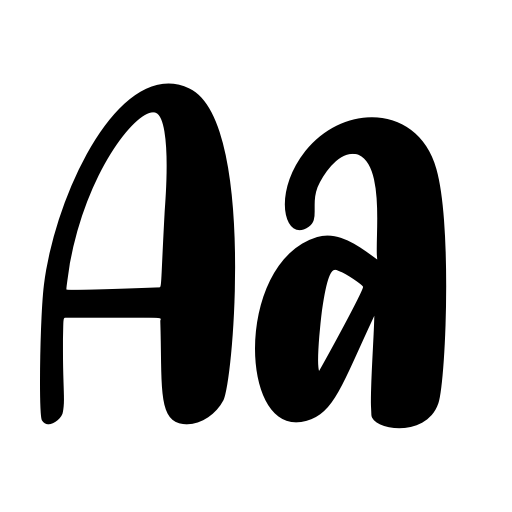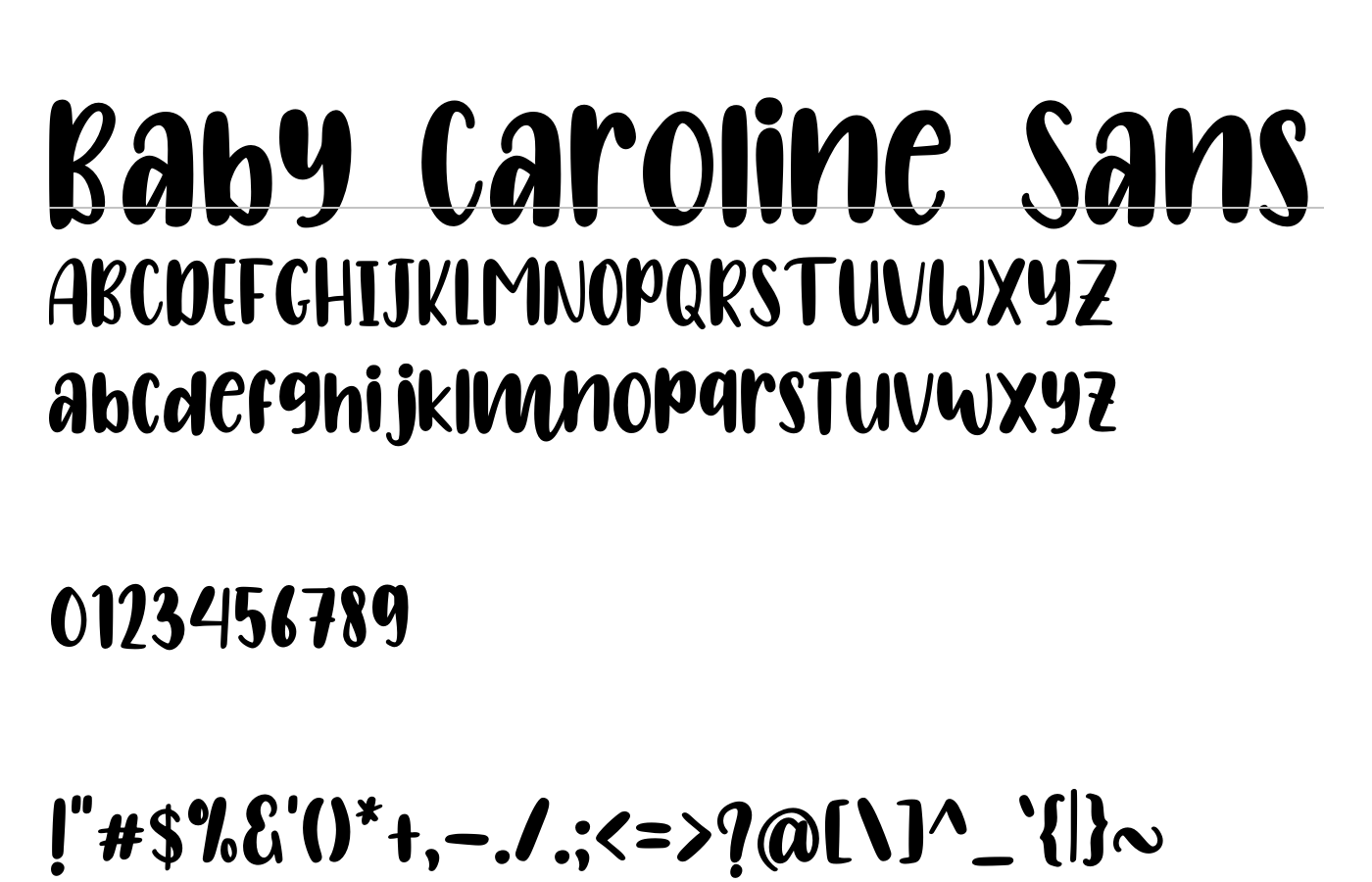
Baby Caroline Sans is a playful, hand-drawn sans serif font with a warm, friendly feel. Its rounded, irregular letterforms and moderate stroke weight give it a casual, approachable style perfect for children’s products, informal branding, or creative headlines. This font works well in designs that want to convey fun, creativity, and a personal touch without sacrificing readability.
Baby Caroline Sans Font
About Baby Caroline Sans Font
| Font family | Baby Caroline Sans Font |
| Designer | dianhaniff |